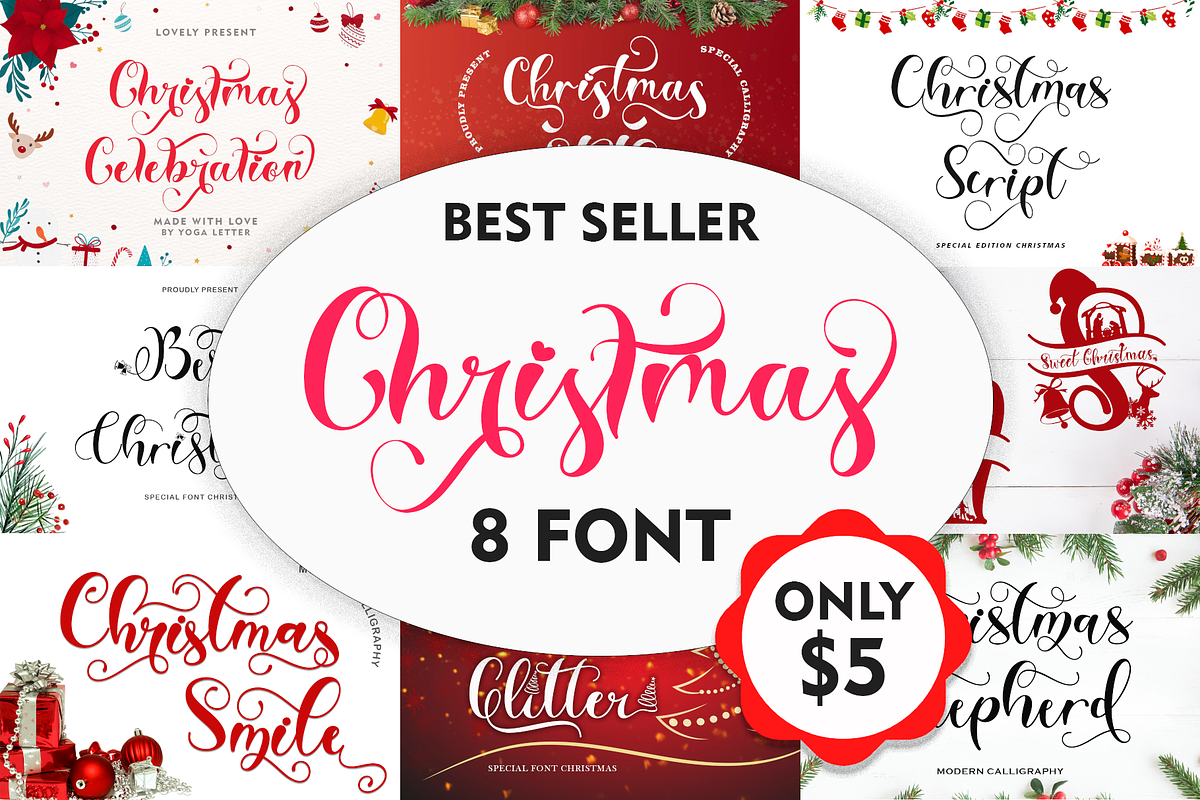
Christmas Best Seller
Our first exclusive pack is an installment of "Christmas Best Seller" filled with 8 beautiful christmas font...ONLY $5 it amazing
This set includes 8 beautiful and popular fonts script !!! Christmas Celebration Christmas Style Christmas Script Best Christmas Sweet Christmas Monogram Christmas Smile Christmas Glitter Christmas Shepherd